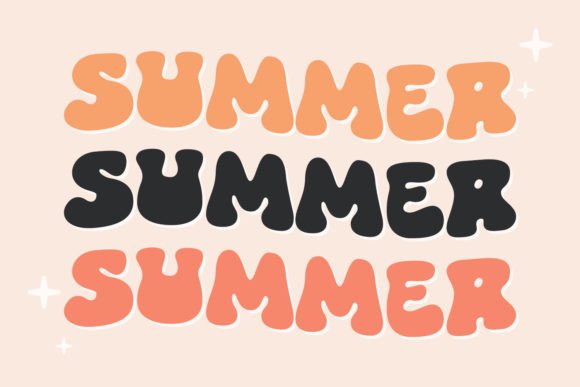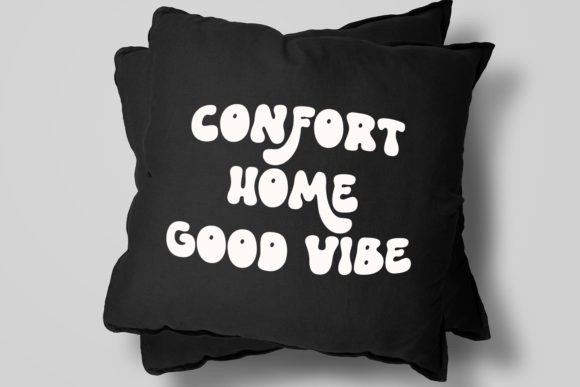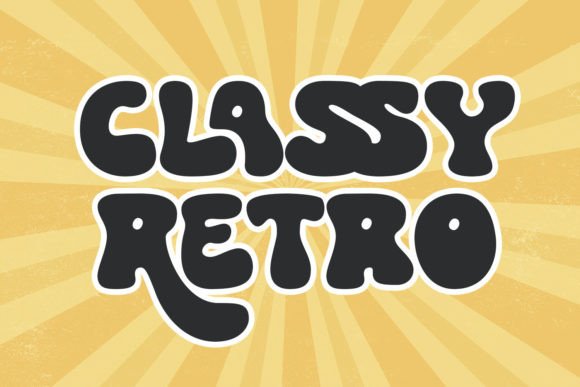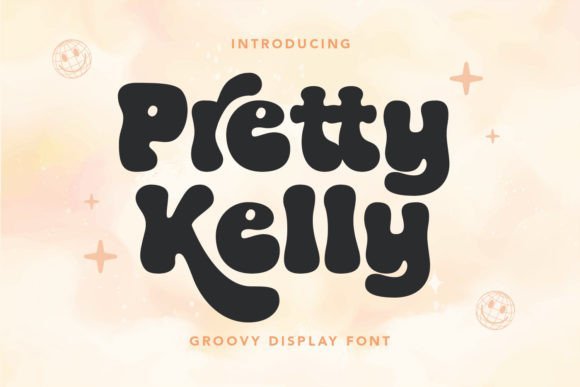
Introduction to Pretty Kelly Font
Pretty Kelly is a stylish display typeface that transports your design back to the groovy era.
With its bold and curvy letterforms, this font exudes a vintage and playful vibe that’s perfect for posters, album covers, and branding projects that need a touch of funk and nostalgia This font is PUA encoded which means you can access all glyphs and swashes effortlessly.